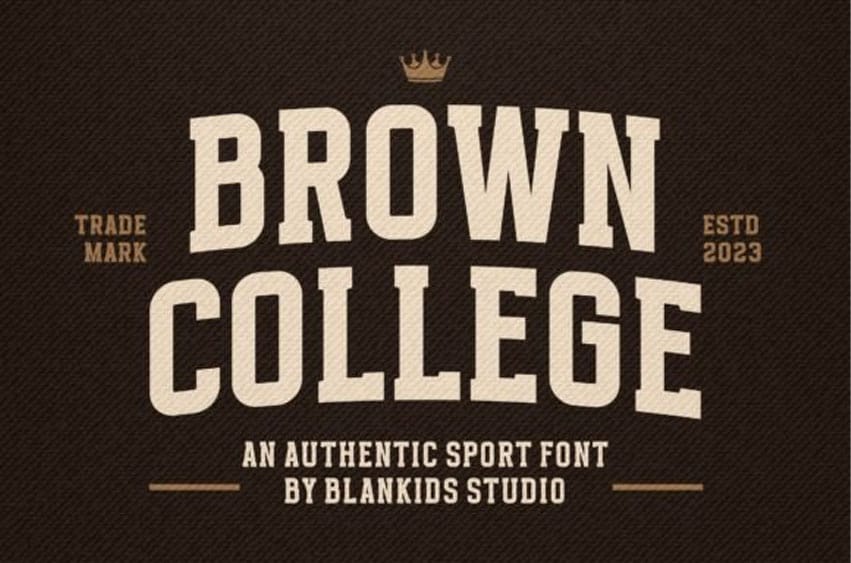
Brown College Font is an authentic sports display font inspired by college typography. It is perfect for attractive and playful designs such as book covers, posters, packaging, merchandise, logotypes, and much more.